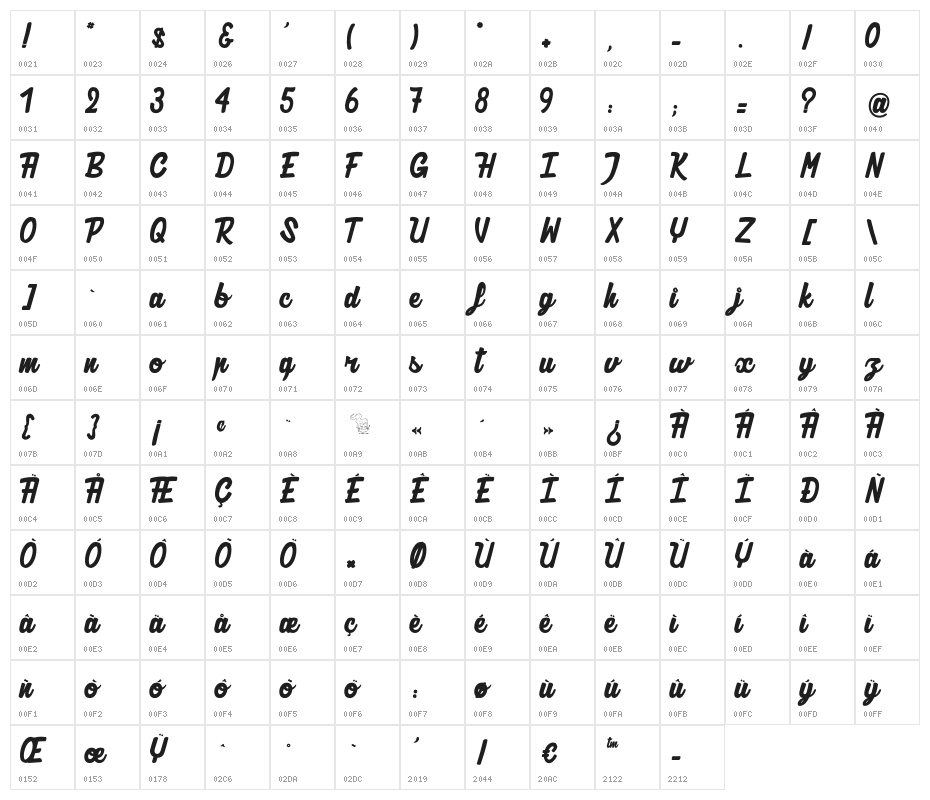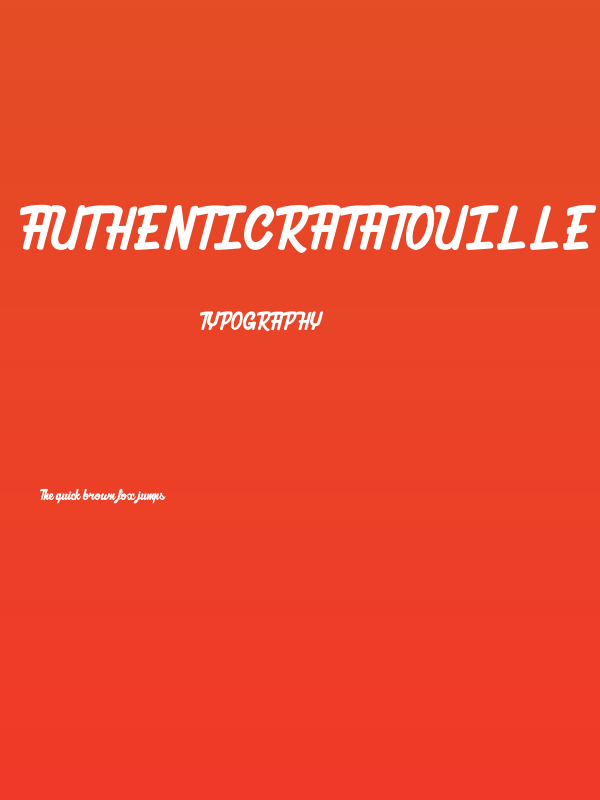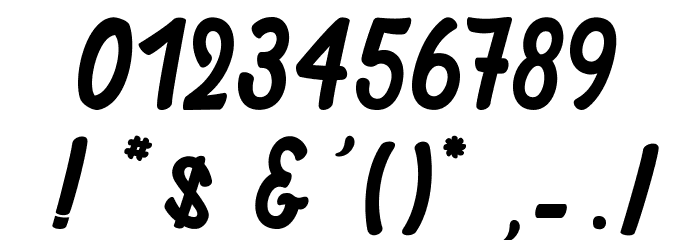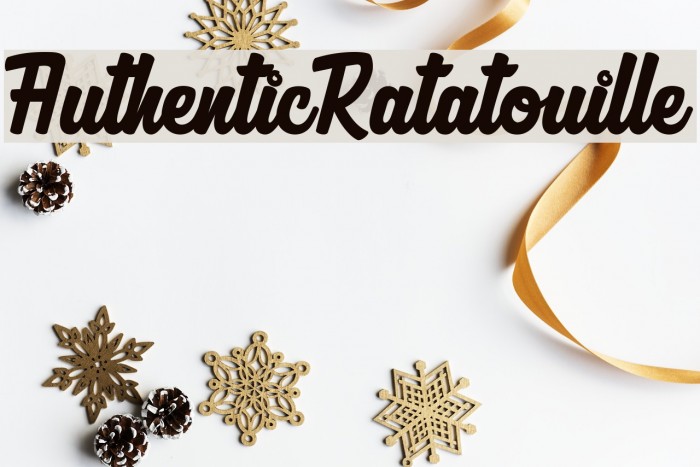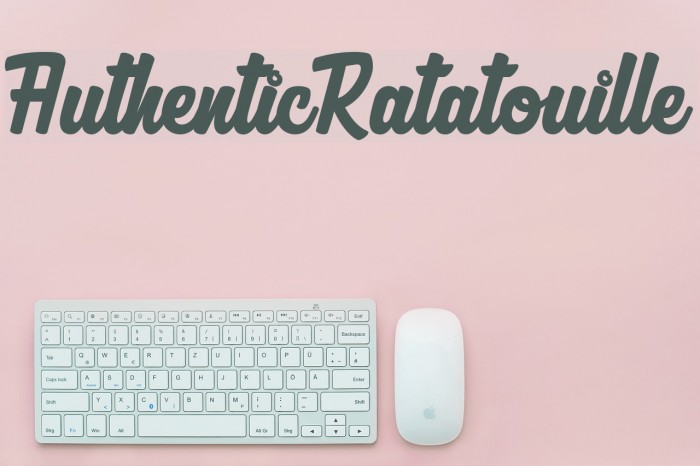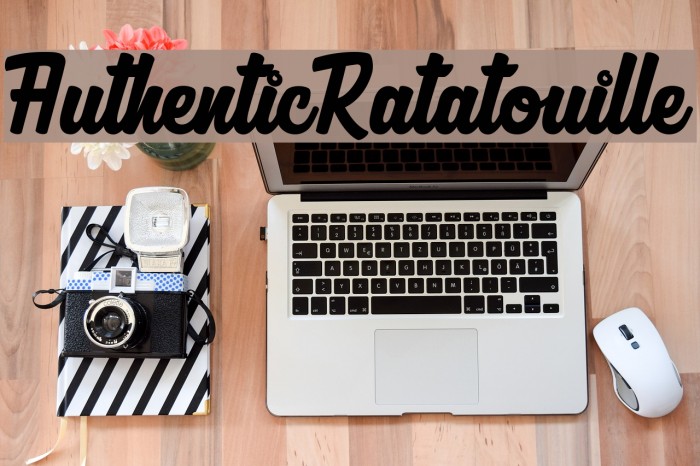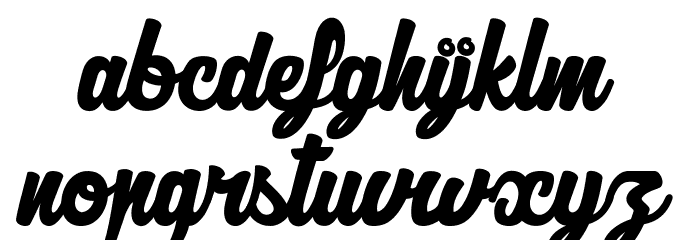
AuthenticRatatouille Font
AuthenticRatatouille Description
This font exudes a playful and dynamic energy with its bold, cursive style. The characters are slightly slanted, giving a sense of movement and fluidity. The uppercase letters are prominent and well-defined, while the lowercase letters maintain a consistent flow, enhancing readability. The numerals are clear and bold, matching the overall style of the alphabet. Special characters are creatively integrated, maintaining the font's cohesive look. The strokes are thick and consistent, providing a strong visual impact, ideal for capturing attention.
| Proposed Projects | Ideal for branding, headlines, posters, and creative projects that require a lively and engaging typeface. |